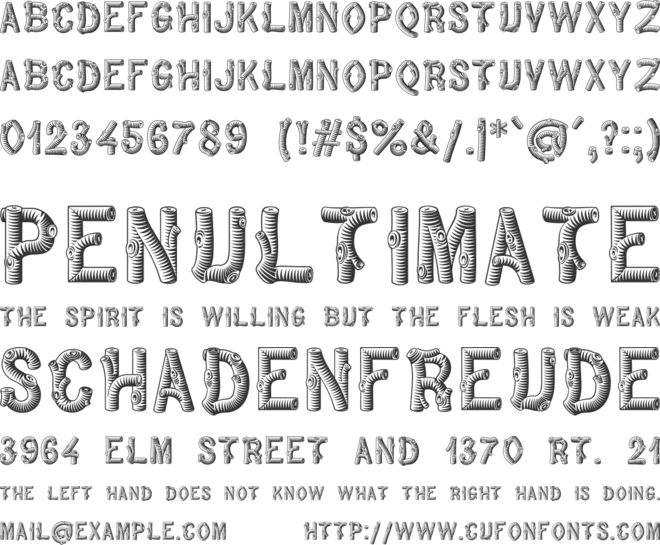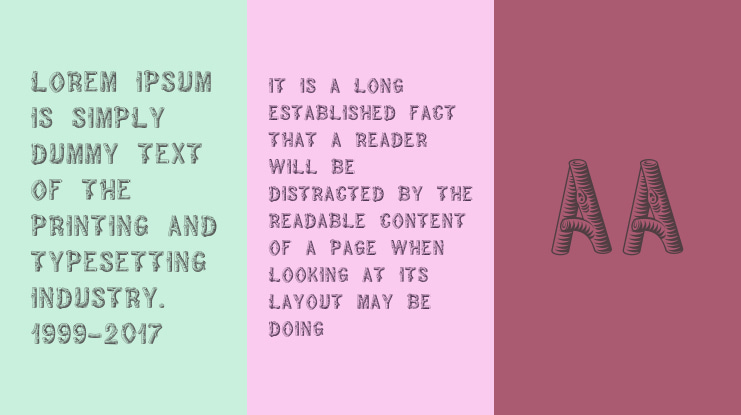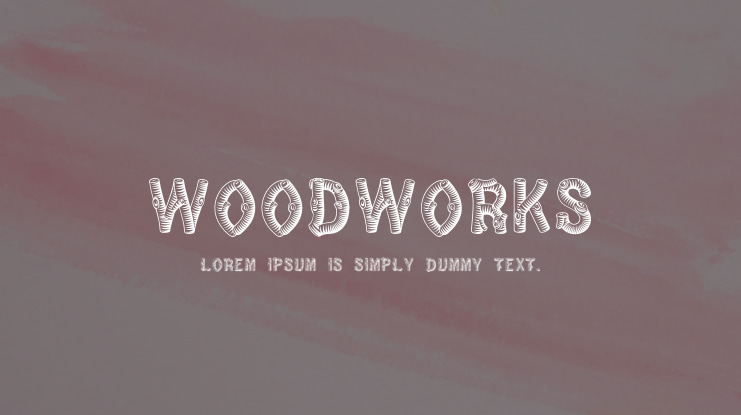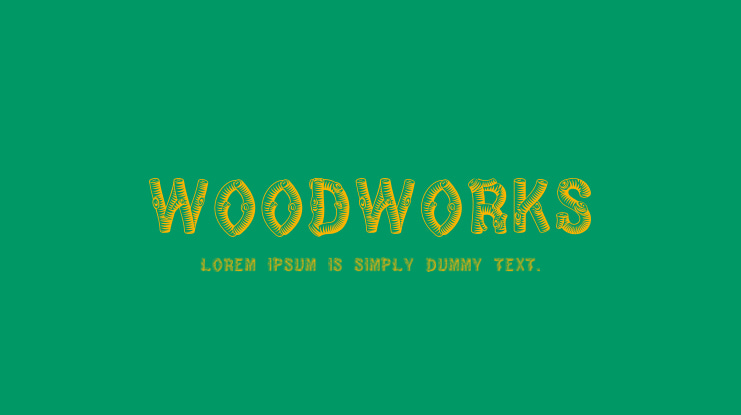
WoodWorks Font Family
Introducing WoodWorks, a decorative display font that brings the rugged charm of wooden logs into your text. Inspired by 19th-century decorative typography, WoodWorks offers a blend of historical elegance and modern readability. Each character is meticulously designed to resemble wooden logs, adding a natural, textured feel. Available in two styles—Regular and Plain (with and without shadow)—WoodWorks supports a comprehensive range of Western European characters, making it perfect for vintage posters, eye-catching headlines, creative branding, and more.
Despite its intricate design, WoodWorks maintains a clean appearance suitable for both digital and print media. Whether you're crafting standout posters, enhancing titles, or adding rustic charm to your brand's logo, WoodWorks provides the flexibility and uniqueness your projects need. Transform your text with the timeless appeal of wood and choose WoodWorks for a touch of wooden elegance in any design.
WoodWorks font preview